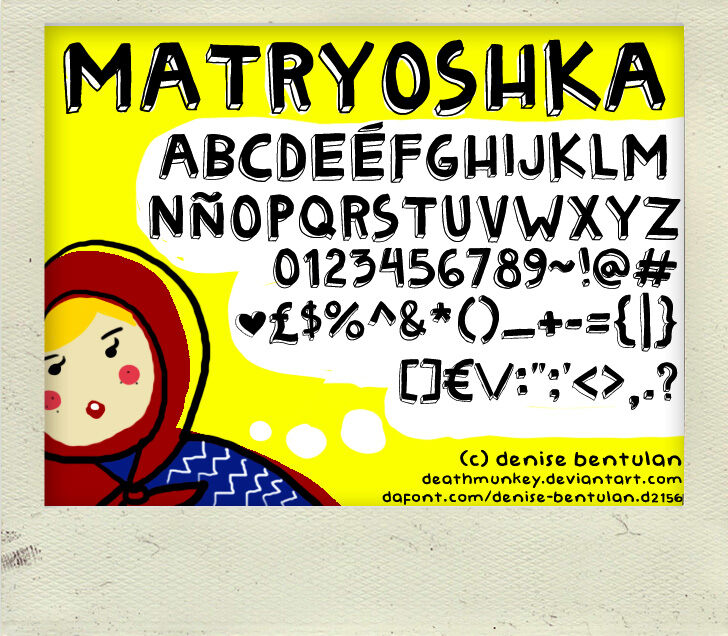
Matryoshka by Denise Bentulan is a free cartoon 3D display font with tall, tightly packed capitals and a lively cut-paper look. Heavy front faces, offset outlined shadows, and uneven contours make the lettering feel hand-built, with narrow forms that bend and bulge rather than following a rigid outline.
On posters, the deep shadowing turns words into chunky graphic shapes that suit comedy nights, school events, and animated entertainment. It has the bounce of hand-drawn title lettering. The same theatrical construction can become part of character-led packaging or playful merchandise, especially when the letters are treated almost like illustrated props.